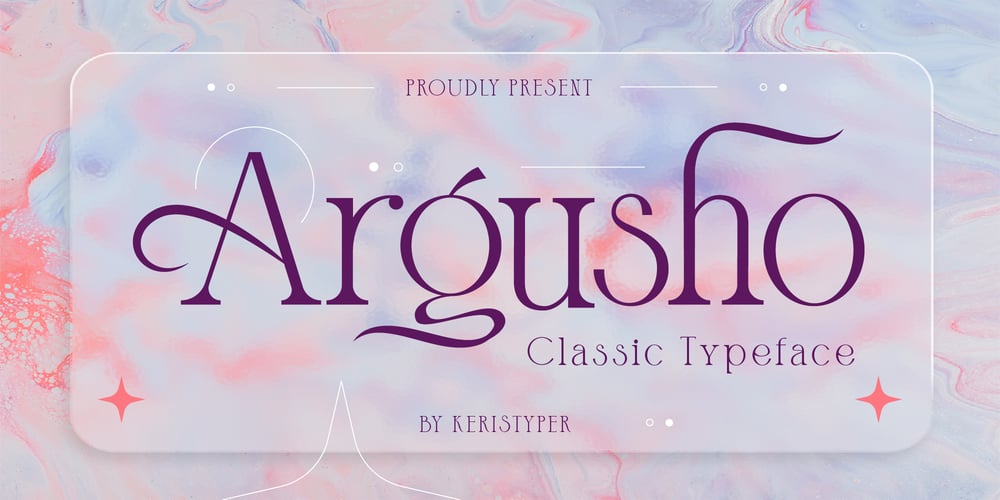
Argusho Font Family was designed by Tezar Tantular and published by Keristyper Studio. Argusho contains 1 styles and family package options. Introducing, Argusho font a modern typeface that takes a classic style. Designed to give the impression of elegance and luxury with a classic feel. This font is good for logo design, Social media, Movie Titles, Books Titles, short text even long text letters, and good for your secondary text font with sans or serif.**Featured:*** Standard Uppercase & Lowercase* Numeral & Punctuation* Multilingual : ä ö ü Ä Ö Ü ß ¿ ¡* Alternate & Ligature* PUA encodedWe recommend programs that support the OpenType feature and the Glyphs panel such as Adobe applications or Corel Draw. so you can use all the variations of the glyphs.Hope you enjoy our fonts!